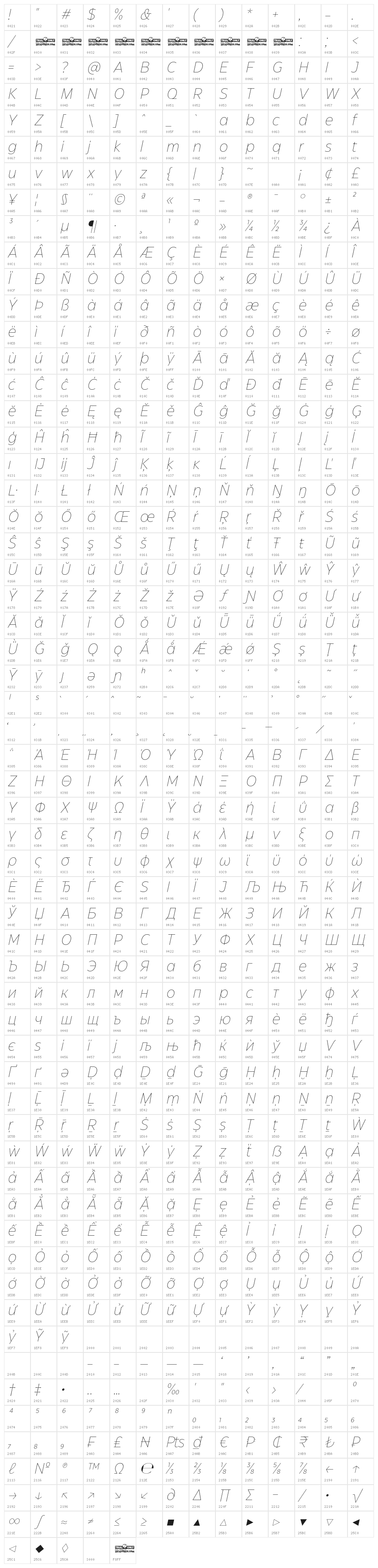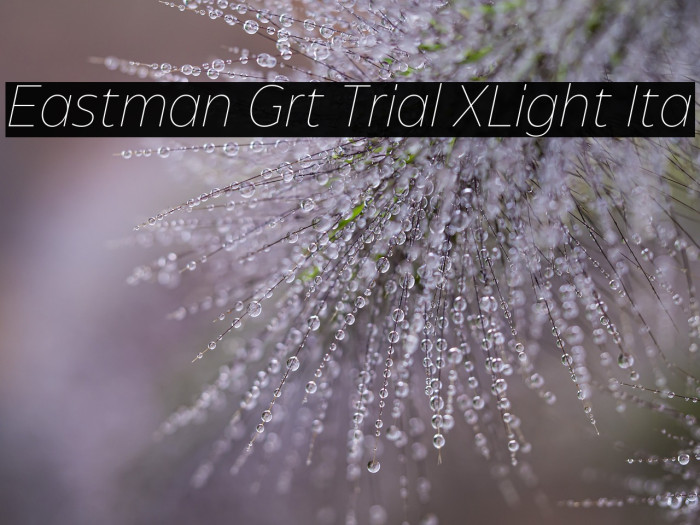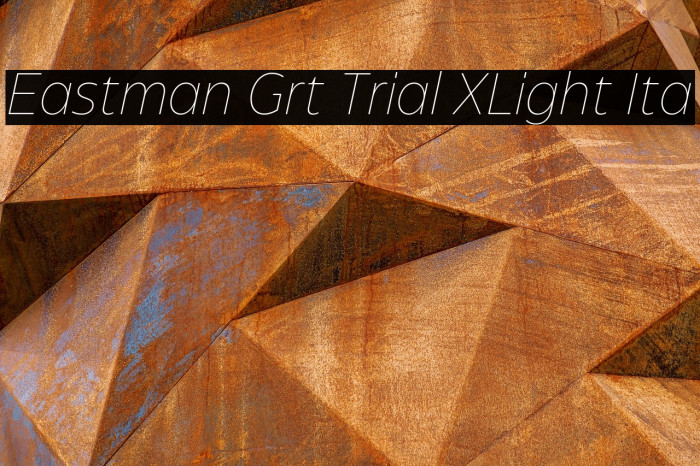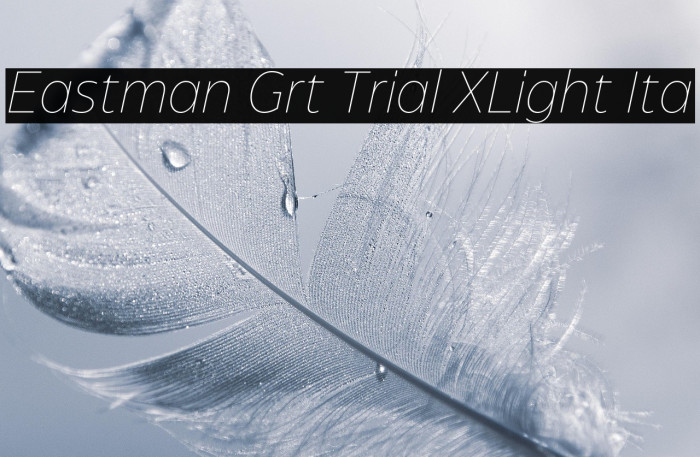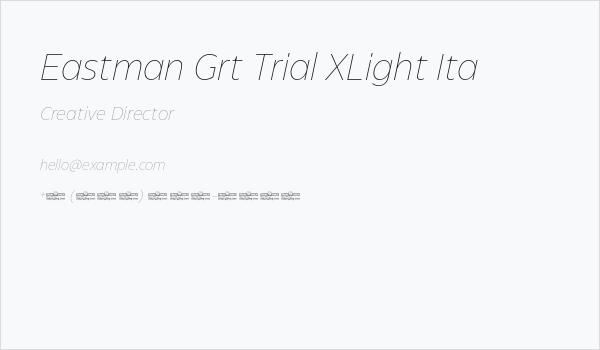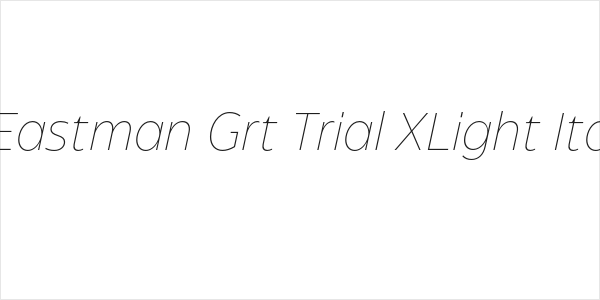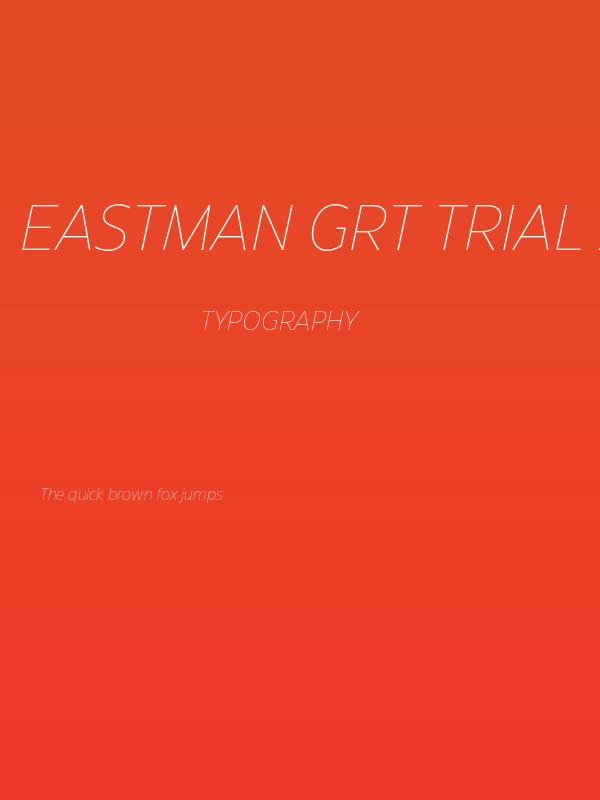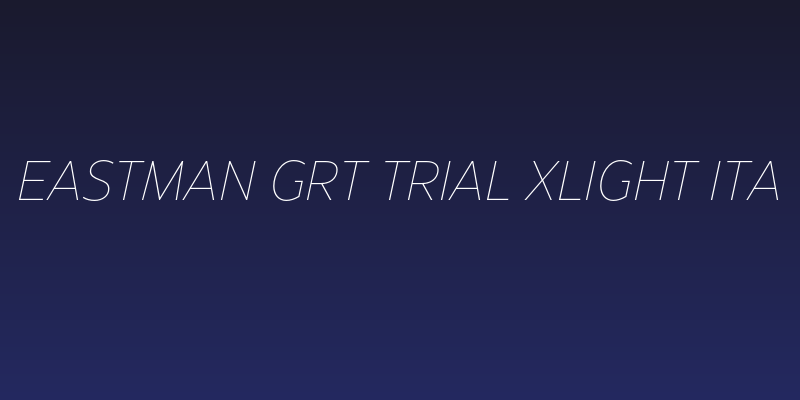
Eastman Grt Trial XLight Ita Font
Eastman Grt Trial XLight Ita Description
This font features a sleek, modern design with an elegant and minimalistic approach. The characters are crafted with a thin, delicate stroke, giving it an airy and sophisticated appearance. The italic style adds a dynamic and fluid touch, enhancing its contemporary feel. The uppercase and lowercase letters maintain a consistent height and width, ensuring readability while preserving a stylish aesthetic. The numerals and special characters are designed to complement the overall look, making it versatile for various applications. Its light weight and clean lines make it ideal for projects that require a refined and polished look.